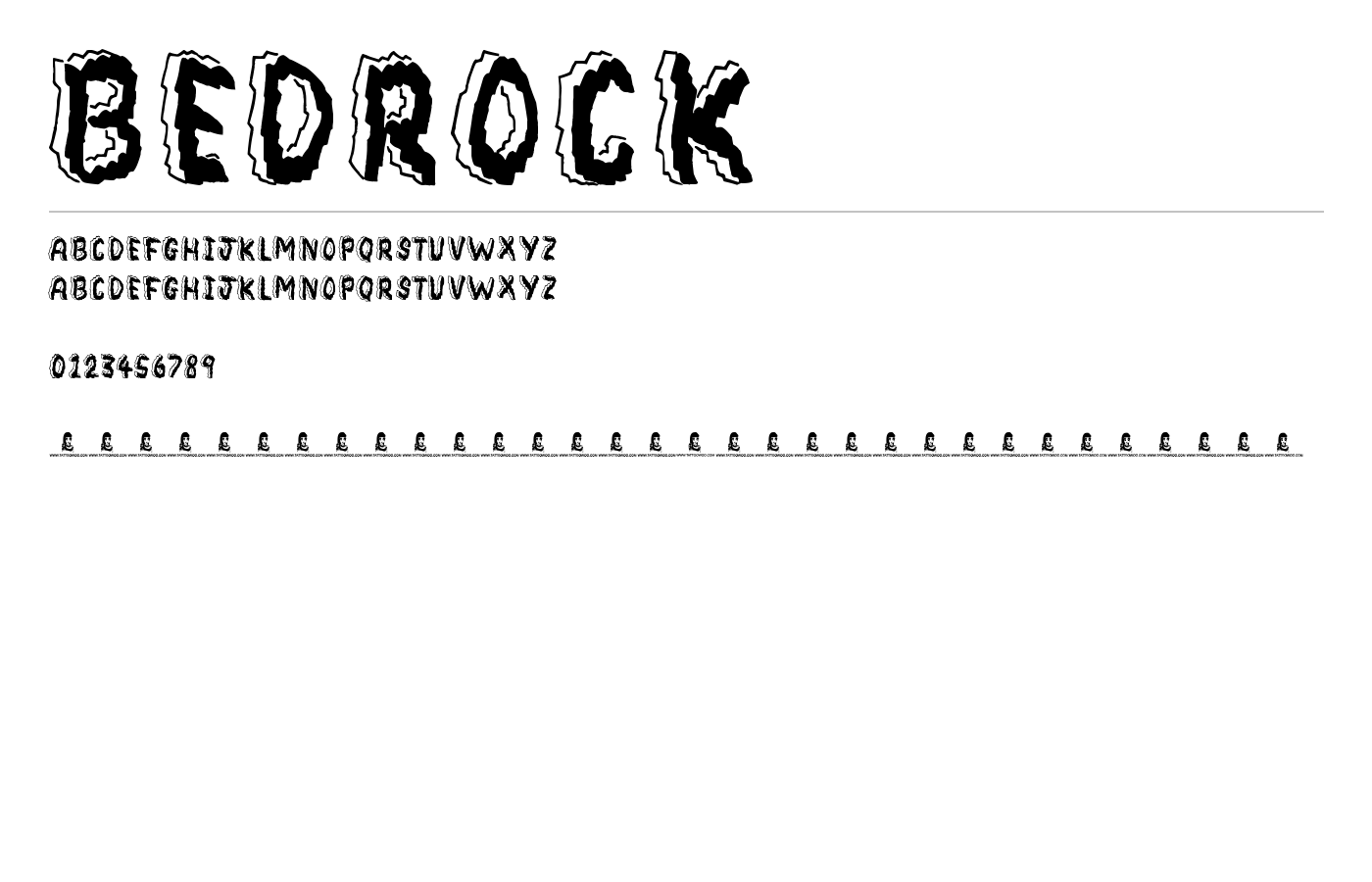
Bedrock is a bold, display sans serif font characterized by rough, jagged edges, giving it a gritty and textured appearance reminiscent of cracked stone or rugged surfaces. Its irregular, hand-drawn style lends a playful and striking personality, making it ideal for creative, adventurous branding, posters, or any design needing a strong, dynamic statement. This font works best in large sizes where its unique texture can be fully appreciated, adding character and energy to headlines or logos.
Bedrock Font
About Bedrock Font
| Font family | Bedrock Font |
| Designer | Jonathan S. Harris |